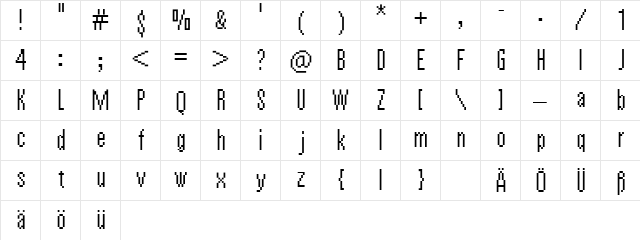
vierzehn plain14px
Design Context for vierzehn Typeface
vierzehn is a composed and adaptable typeface that performs quietly and consistently across a wide range of design contexts.